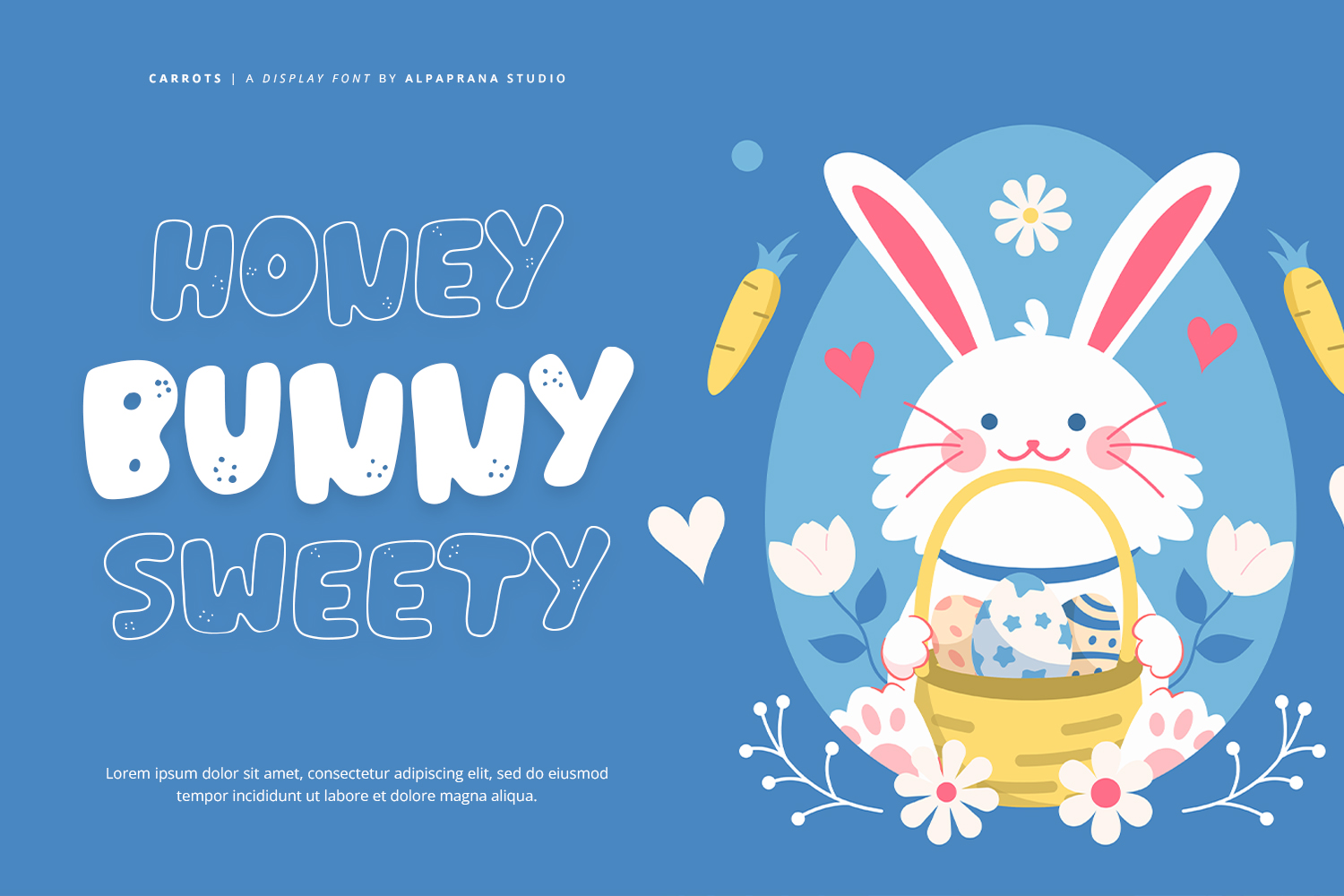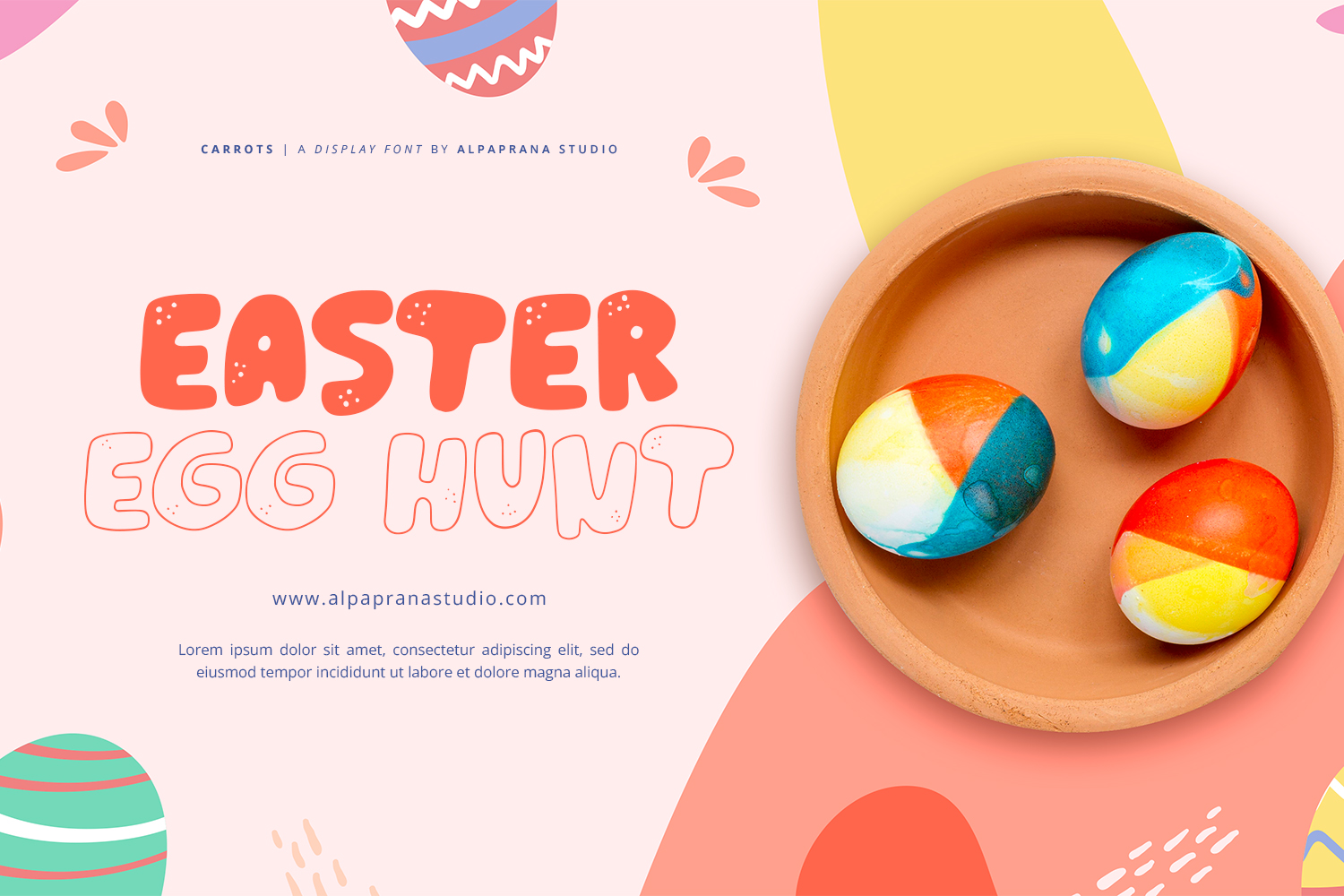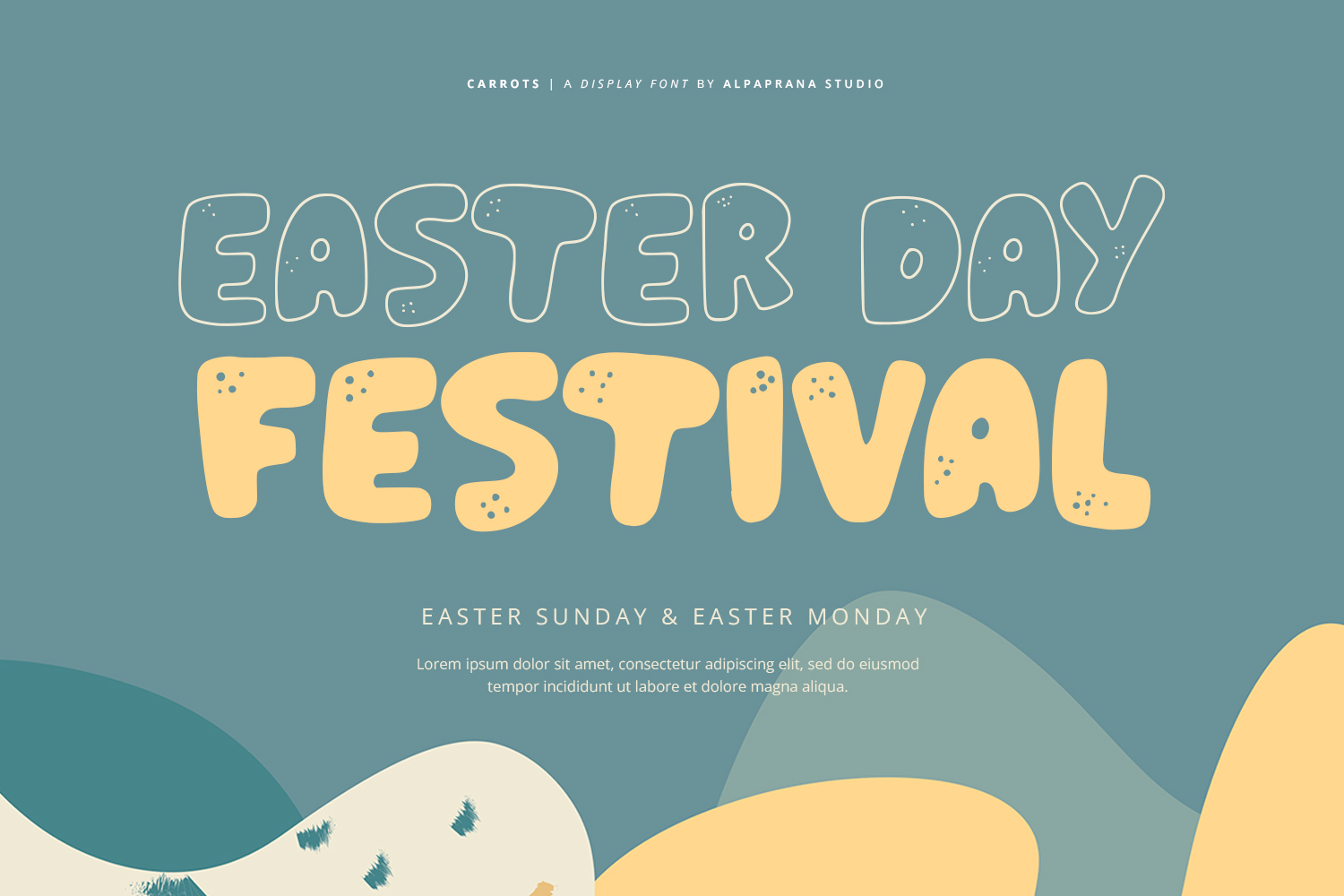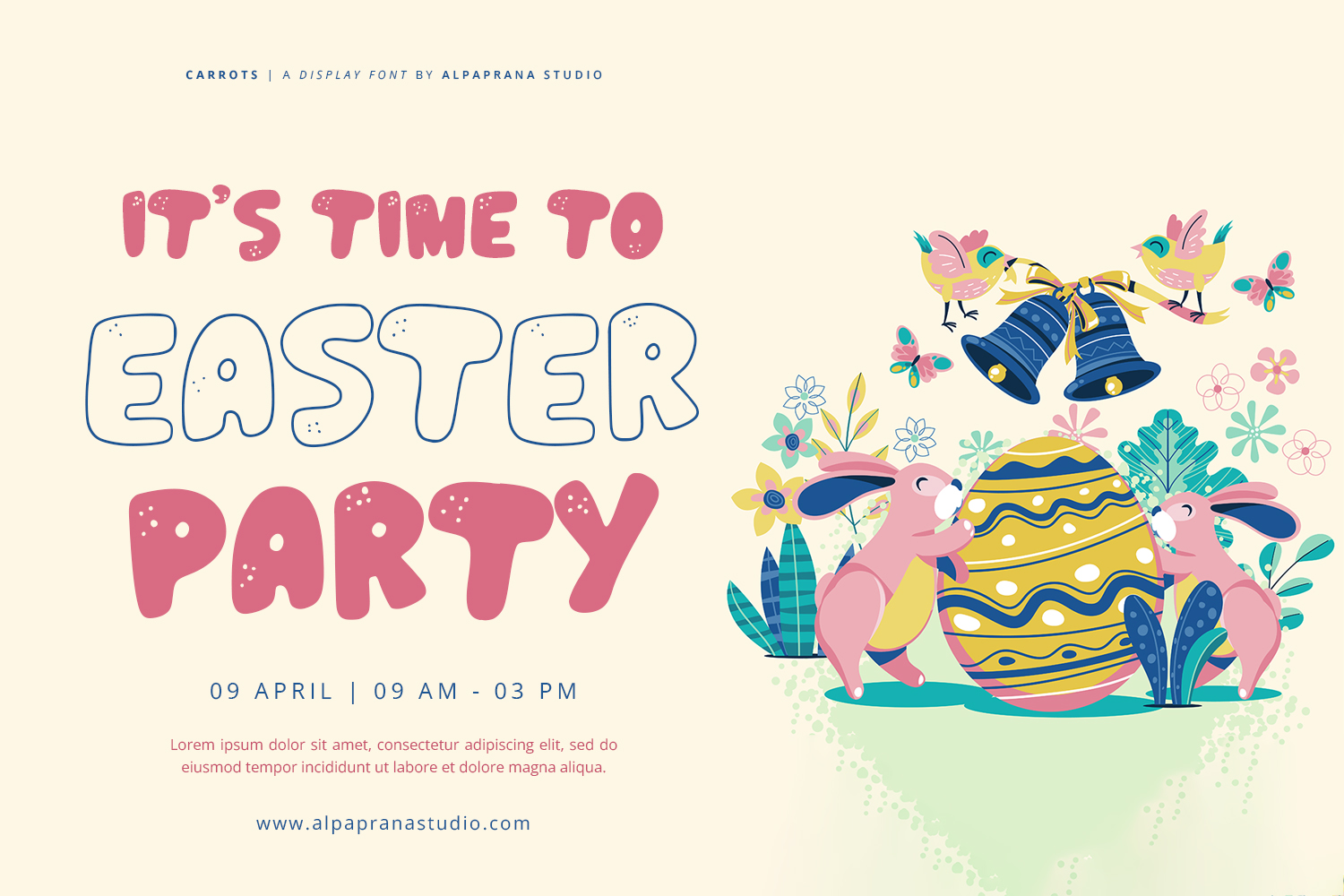
Carrots Free Font
Carrots Free Font is a display font with cute and playful characters. It is suitable for branding, logo design, logotype, posters, magazines, packaging, book covers, and more. This free typeface was designed by a talented Alpaprana Studio. If you like it don’t forget to check out the full version.